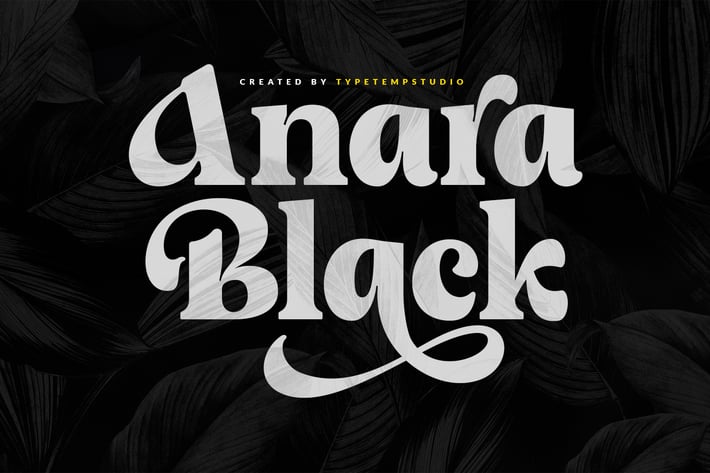
Anara Black Display Font
Anara Black Display Font complemented by some of the same alternatives made with love. Access your OpenType features to access the large selection of alternate letters and ligatures, select the letters you like from the large variety to get the display font you like. Perfect for editorial projects, Logo design, Clothing Branding, product packaging, magazine headers, or simply as a stylish text overlay to any background image.
Stylistic Alternates & Ligatures
Numerals & Punctuation
Multilanguange